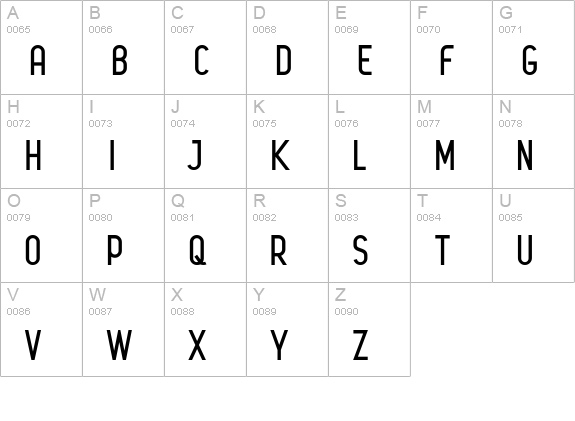
LegerBold Font Details
LegerBold is a stunning and versatile font that effortlessly captures attention with its bold and impactful design. Its strong and confident letterforms exude a sense of power and authority, making it perfect for headlines, titles, and eye-catching graphics. This font stands out with its unique combination of thick strokes and sharp angles, creating a modern and contemporary look that is both elegant and bold. The careful balance between its boldness and legibility ensures that LegerBold remains readable even in smaller sizes, making it suitable for various design purposes. As an added bonus, LegerBold is available for free download exclusively at FontsMarket.com. This means that you can elevate your projects with this exceptional font without worrying about any additional costs. Whether you are a professional designer, a student working on a project, or someone simply looking to add some flair to their personal creations, LegerBold offers you the opportunity to do so freely and effortlessly. With its free availability and captivating design, LegerBold is a must-have font for anyone seeking to make a bold statement and leave a lasting impression. Download it now from FontsMarket.com and unlock a world of creativity and possibilities.